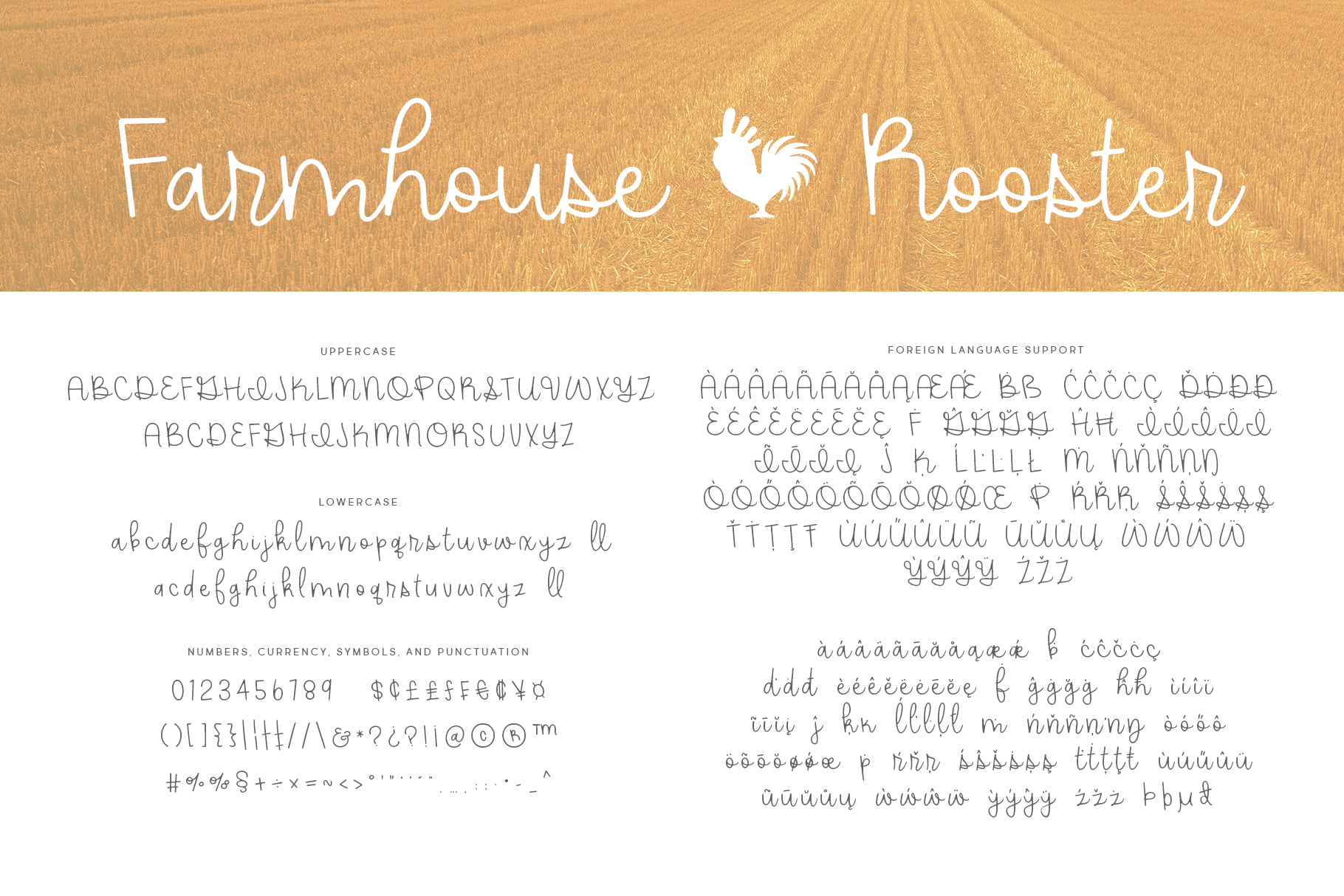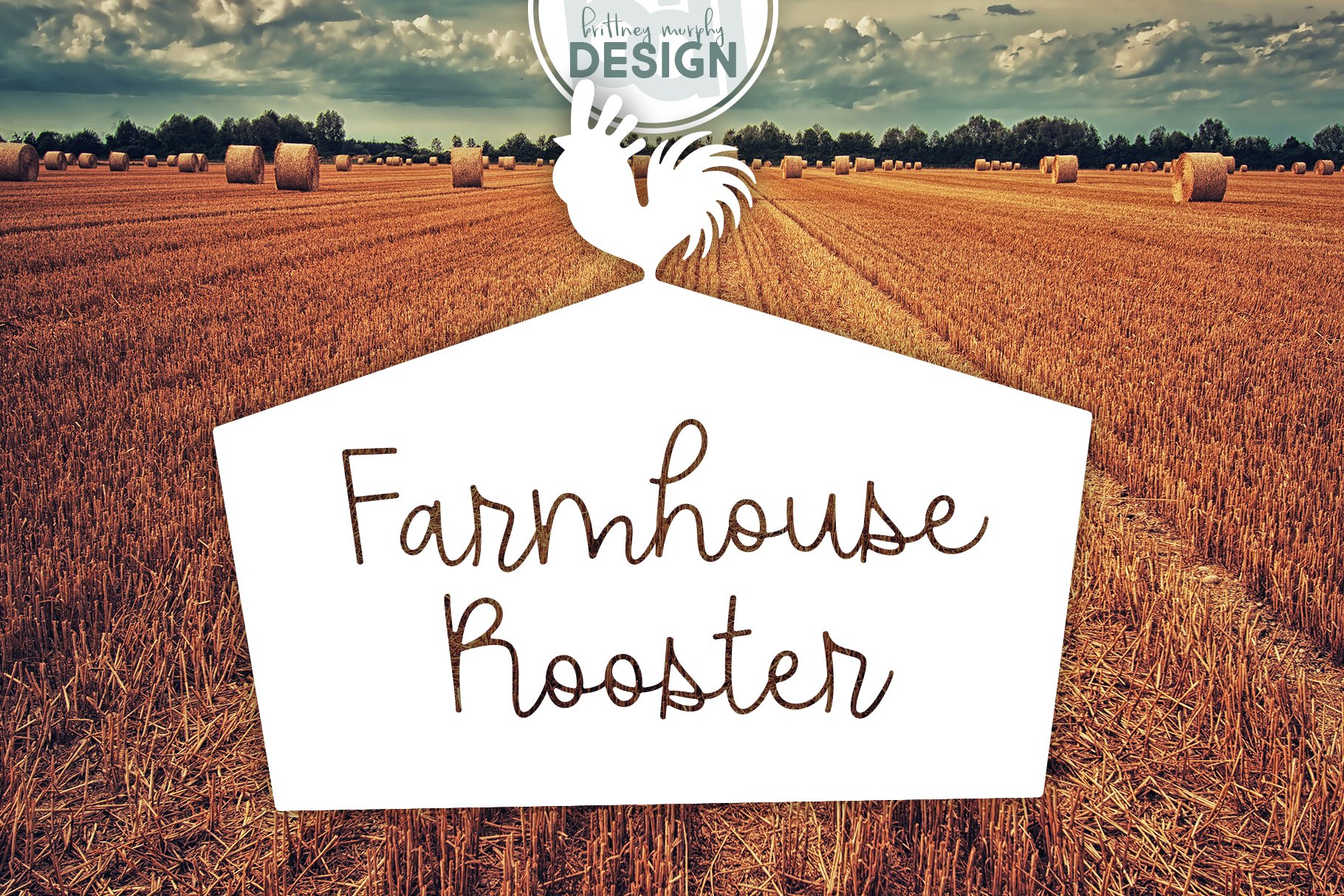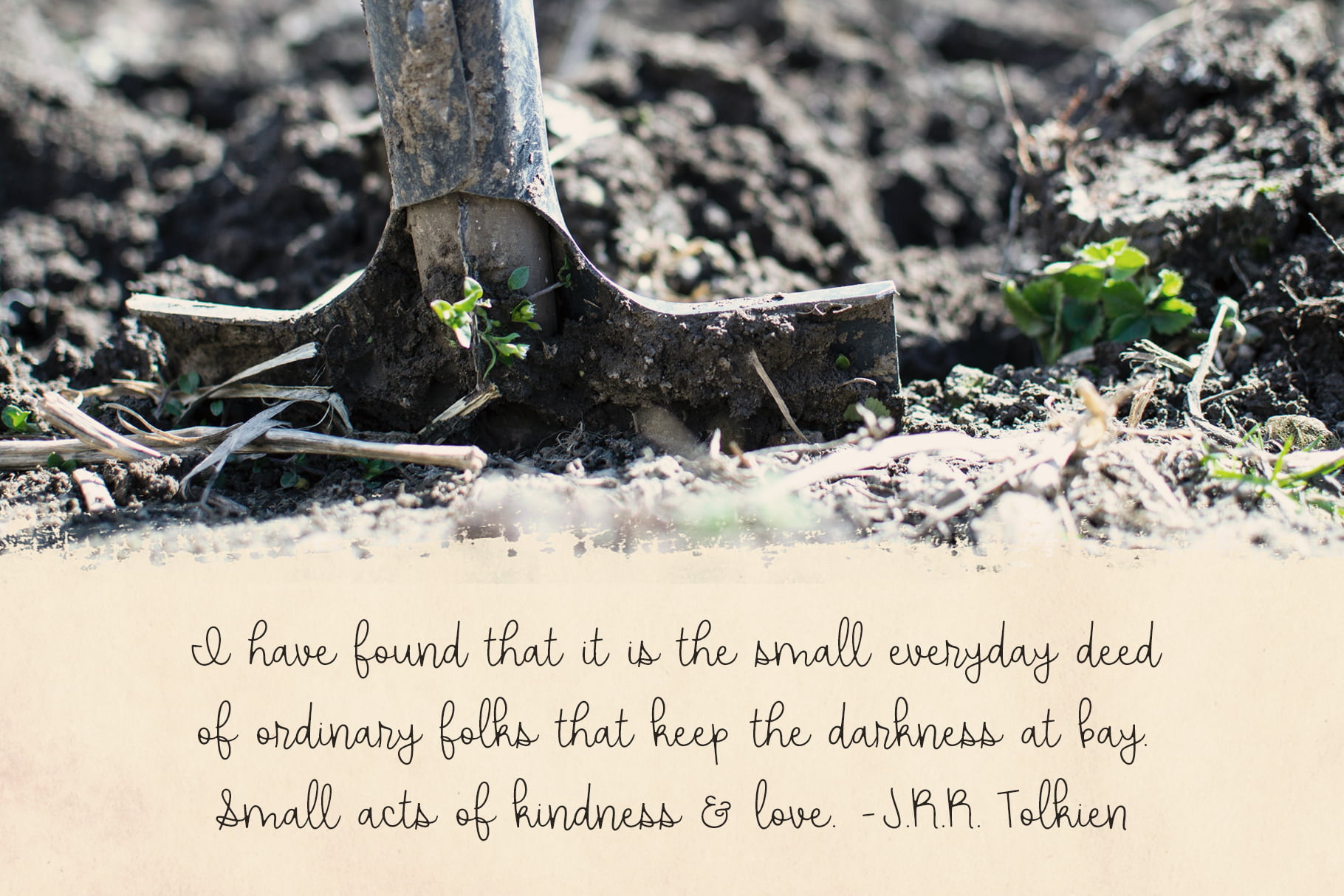
Farmhouse Rooster
The Farmhouse Rooster font is a smooth handdrawn script font made in 2020 by Brittney Murphy Design. Farmhouse Rooster’s homemade style is especially suited for crafts, decor, and packaging.